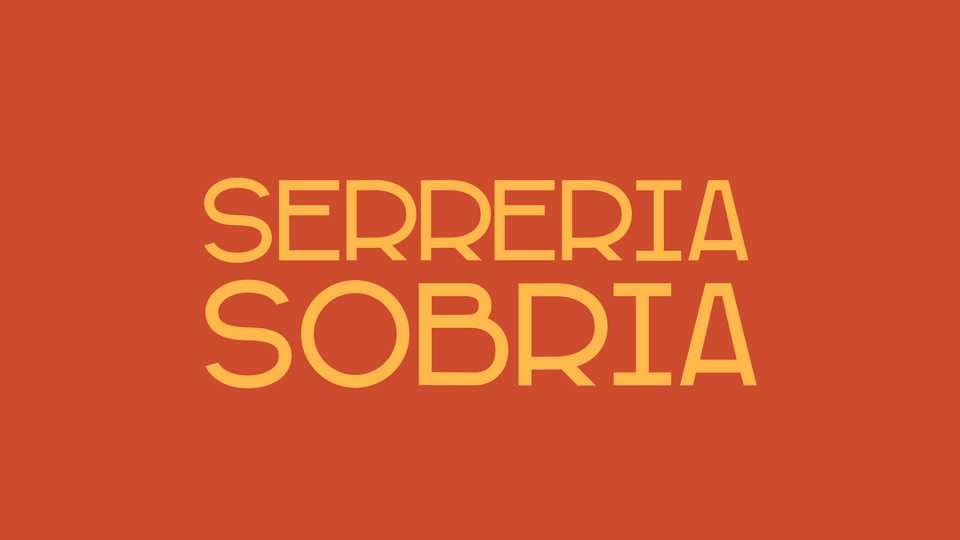
Download MFI Serreria Sobria font, a retro display font drawn from letterforms on an ancient sawmill in Madrid. MFI Serriria Sobria font perfectly fits for posters, headlines, signage and other display use.
Designer: Manufactura Independente